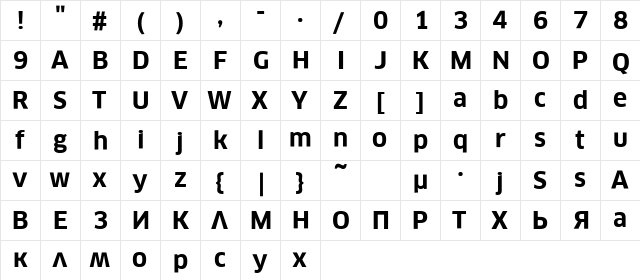
ClanPro Bold
| Foundry | Lukasz Dziedzic |
Design Context for ClanPro Typeface
ClanPro takes a measured approach to typography — its balanced proportions and neutral character make it a reliable workhorse for both digital and print work. The heavy weight commands attention and anchors typographic hierarchies.